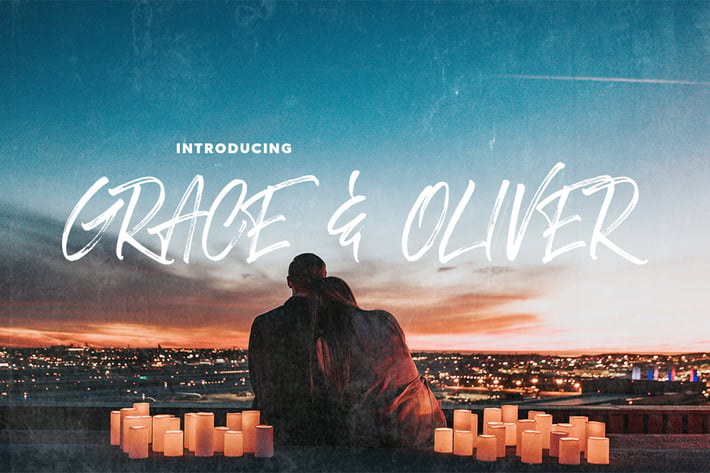
Grace & Oliver Font
Grace and Oliver is a new font that is rough, loud and proud! Use it to stand out from the crowd and to add a little edge to your work! Great for logos, quotes and branding. It also pairs well with others! The font includes two different versions of each letter with the upper and lowercase keys. Enjoy!